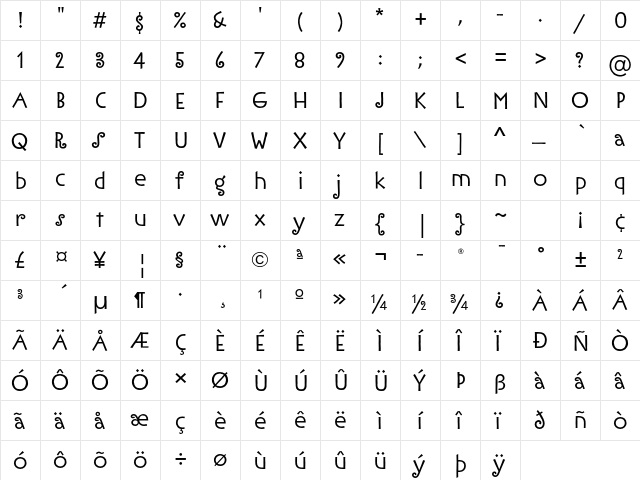
Ironwork ITC Std Regular
| Designer | Serge Pichii |
Design Context for Ironwork ITC Std Typeface
Ironwork ITC Std is a composed and adaptable typeface that performs quietly and consistently across a wide range of design contexts.